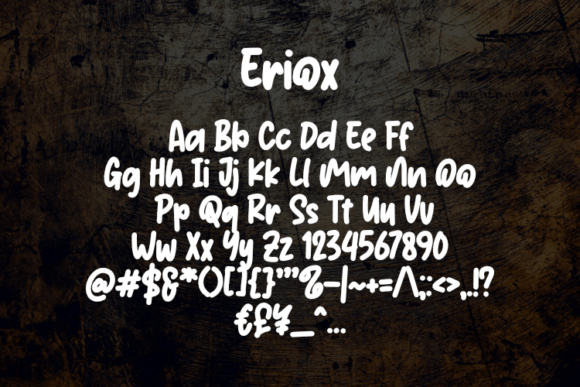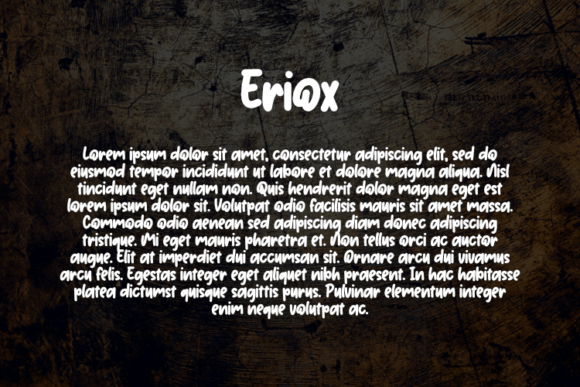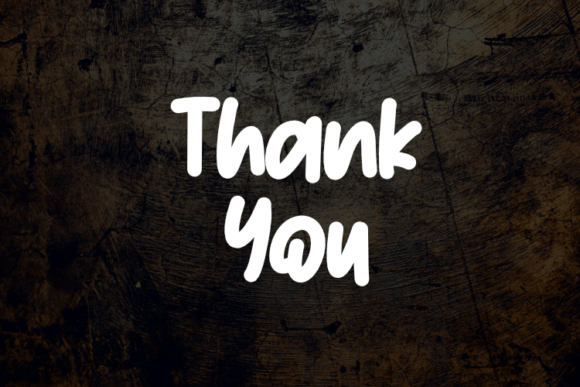
Eriox Font: Elevate Your Designs with Modern Elegance
In the world of typography, a font can make or break a design. With the vast array of typefaces available, selecting the right one can be a daunting task. However, if you’re looking for a modern and elegant solution that offers flexibility and excellent readability, look no further than Eriox Font. In this article, we’ll delve into the features and benefits of Eriox, and explore why it’s an ideal choice for designers and crafters alike.
Introduction to Eriox Font
Eriox is a contemporary typeface designed to excel in a wide range of media, from digital platforms to print materials. Its sleek and sophisticated design makes it perfect for projects that require a touch of elegance and refinement. Whether you’re working on a branding campaign, a website, or a craft project, Eriox Font is an excellent choice.
Key Features of Eriox Font
So, what sets Eriox Font apart from other typefaces? Here are some of its key features:
- Modern and Elegant Design: Eriox boasts a sleek and sophisticated design that’s perfect for projects that require a touch of elegance.
- Excellent Readability: The font’s clear and legible design ensures that your text is easy to read, even at small sizes.
- Flexible and Versatile: Eriox Font is designed to work well in a variety of contexts, from digital platforms to print materials.
Use Cases for Eriox Font
Eriox Font is an incredibly versatile typeface that can be used in a wide range of projects. Here are some examples of use cases:
- Branding and Logo Design: Eriox Font’s modern and elegant design makes it perfect for branding and logo design projects.
- Web Design: The font’s excellent readability and flexibility make it an ideal choice for web design projects.
- Print Materials: Eriox Font works well in print materials, such as brochures, flyers, and business cards.
- Crafting and DIY Projects: The font’s elegant design makes it perfect for crafting and DIY projects, such as handmade cards and invitations.
Why Choose Eriox Font?
With so many typefaces available, why choose Eriox Font? Here are some compelling reasons:
- Unique and Elegant Design: Eriox Font’s modern and elegant design sets it apart from other typefaces.
- Excellent Readability: The font’s clear and legible design ensures that your text is easy to read.
- Flexibility and Versatility: Eriox Font is designed to work well in a variety of contexts.
In conclusion, Eriox Font is an exceptional typeface that offers a unique combination of modern elegance, excellent readability, and flexibility. Its .otf file format ensures superior cross-platform compatibility, making it an ideal choice for all design software and office applications. Whether you’re a designer, crafter, or DIY enthusiast, Eriox Font is an excellent choice for your next project.